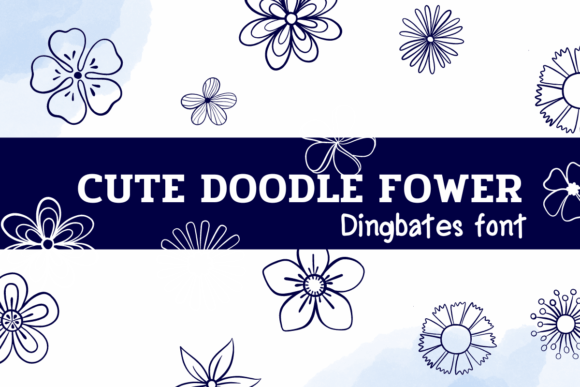
Celebrating Creativity with Cute Flower Doodle Font
Have you ever found yourself scribbling intricate doodles on a piece of paper, lost in a world of creativity and imagination? It’s that moment of pure joy when ideas start flowing, and inspiration strikes. For designers and crafty enthusiasts, the desire to express themselves through unique and visually appealing elements is a constant quest.
That’s where the Cute Flower Doodle Font comes in – a delightful dingbats font that adds a touch of whimsy and charm to any project. This adorable font is designed to bring a smile to your face and a spring to your step. Its sketch-style design makes it perfect for wedding invitations, DIY crafts, decorations, logos, and many other creative ideas.
As a valuable tool for designers, the Cute Flower Doodle Font offers endless possibilities for customization and self-expression. Whether you’re working on a personal project or creating for a client, this font is sure to add a personal touch and make your work stand out from the crowd.
Cute Flower Doodle Font Key Features
- Unique Characteristics: The Cute Flower Doodle Font features a whimsical, hand-drawn design with intricate floral patterns and playful doodles, adding a touch of personality to any text.
- Script and Upright Styles: This font includes both script and upright styles, providing users with flexibility in choosing the perfect look for their designs.
Cute Flower Doodle Font Review
Overall, I’m impressed with the Cute Flower Doodle Font. Here’s what works well: ✨ It’s perfect for creating a playful, whimsical atmosphere in your designs. The floral doodle elements add a charming touch to any text or composition. ✨ The font is highly customizable, allowing you to adjust the size, color, and spacing to fit your project’s needs. ✨ The font files are well-organized and easy to navigate, making it a breeze to use.
However, I do have some concerns: ⚠️ The font may not be suitable for formal or professional designs, as it can come across as too playful or childish. ⚠️ Some users may find the doodle elements distracting or overwhelming, especially if used excessively. ⚠️ The font’s legibility can suffer at smaller font sizes, making it harder to read.
Despite these limitations, I think the Cute Flower Doodle Font is a great addition to any designer’s toolkit. It’s perfect for creating engaging, eye-catching designs for social media, blog posts, or children’s products. Just be mindful of the font’s limitations and use it judiciously to get the best results.
- Perfect for playful, whimsical designs
- Easy to use
- May not be suitable for formal designs
- Can be distracting or overwhelming if used excessively
- Legibility can suffer at smaller font sizes
For the best results, use the Cute Flower Doodle Font in conjunction with a pastel color palette and floral patterns. Experiment with different font sizes and styles to create a whimsical and playful design.
The Cute Flower Doodle Font is perfect for:
– Baby shower decorations and invitations
– Children’s party invitations and decorations
– Floral-themed social media graphics and ads